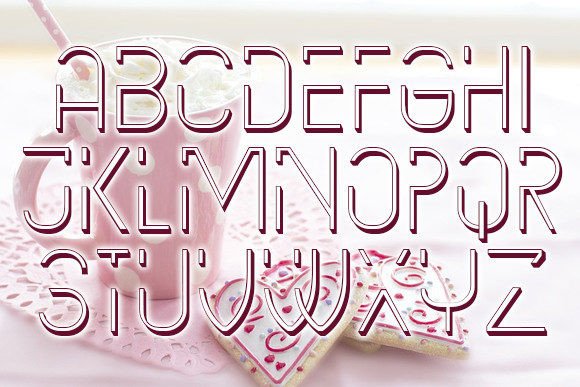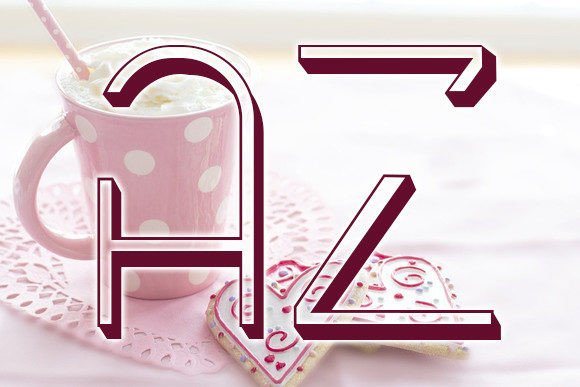
Fritz Font: Elevate Your Designs with a Stylish and Artistic Display Font
In the world of design, typography plays a crucial role in capturing the essence of a message. A font can make or break the visual appeal of a design, and that’s where Fritz Font comes into play. Fritz is a stylish, artistic display font that has been making waves in the design community, and for good reason. This stunning font is perfect for designers and crafters looking to add a touch of elegance and sophistication to their work.
What makes Fritz Font so special?
Fritz Font is a display font that boasts a unique and artistic style, making it perfect for a variety of design projects. Its elegant lines, curves, and shapes give it a distinctive look that sets it apart from other fonts. Whether you’re working on a poster, flyer, or banner, Fritz Font is sure to make your design stand out from the crowd.
Key Features of Fritz Font
- Stylish and Artistic: Fritz Font is designed to add a touch of style and artistry to your designs. Its unique curves and lines make it perfect for creative projects.
- Display Font: Fritz Font is a display font, making it perfect for headlines, titles, and other prominent text elements.
- Versatile: This font can be used on a variety of design projects, including posters, flyers, banners, and more.
- Elegant: Fritz Font has an elegant and sophisticated look that is sure to elevate your designs.
How to Use Fritz Font in Your Designs
Fritz Font is incredibly easy to use and can be incorporated into your designs in a variety of ways. Here are a few ideas to get you started:
- Posters: Use Fritz Font as the main font for your poster design to create a bold and eye-catching headline.
- Flyers: Add a touch of elegance to your flyer design with Fritz Font. Use it for headings, subheadings, or even the entire body text.
- Banners: Make your banner design stand out with Fritz Font. Its large size and artistic style make it perfect for banners and other large-format designs.
Tips for Pairing Fritz Font with Other Fonts
Pairing Fritz Font with other fonts can create a visually appealing and harmonious design. Here are a few tips to keep in mind:
- Contrasting Fonts: Pair Fritz Font with a contrasting font, such as a sans-serif font, to create visual interest.
- Script Fonts: Pair Fritz Font with a script font to add a touch of elegance and sophistication to your design.
- Experiment with Font Sizes: Experiment with different font sizes to create a visually appealing hierarchy of text.
Fritz Font is a stylish, artistic display font that is sure to elevate your designs. Its elegant lines, curves, and shapes make it perfect for a variety of design projects, from posters and flyers to banners and more. With its versatility, ease of use, and stunning good looks, Fritz Font is a must-have for any designer or crafter looking to add a touch of sophistication to their work.